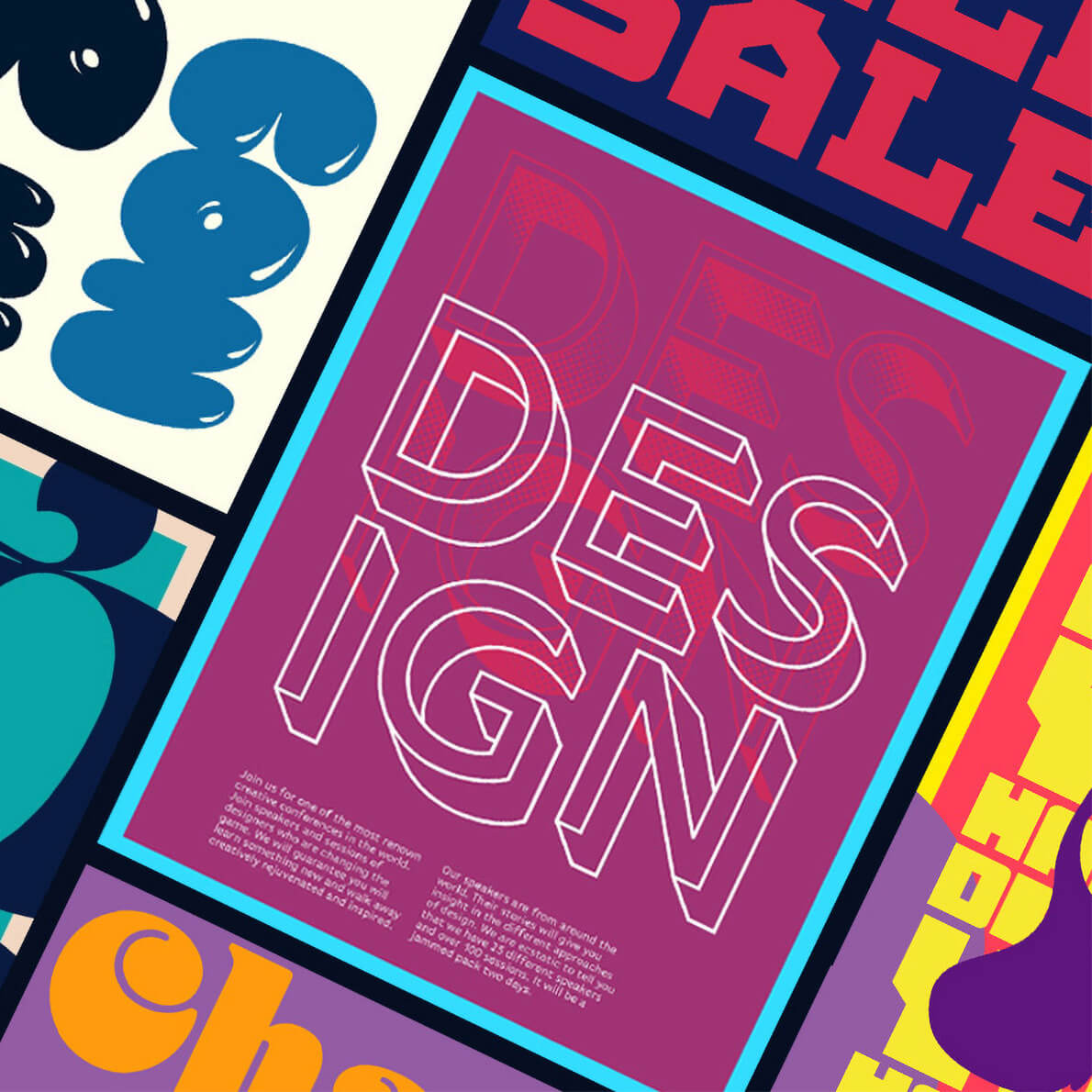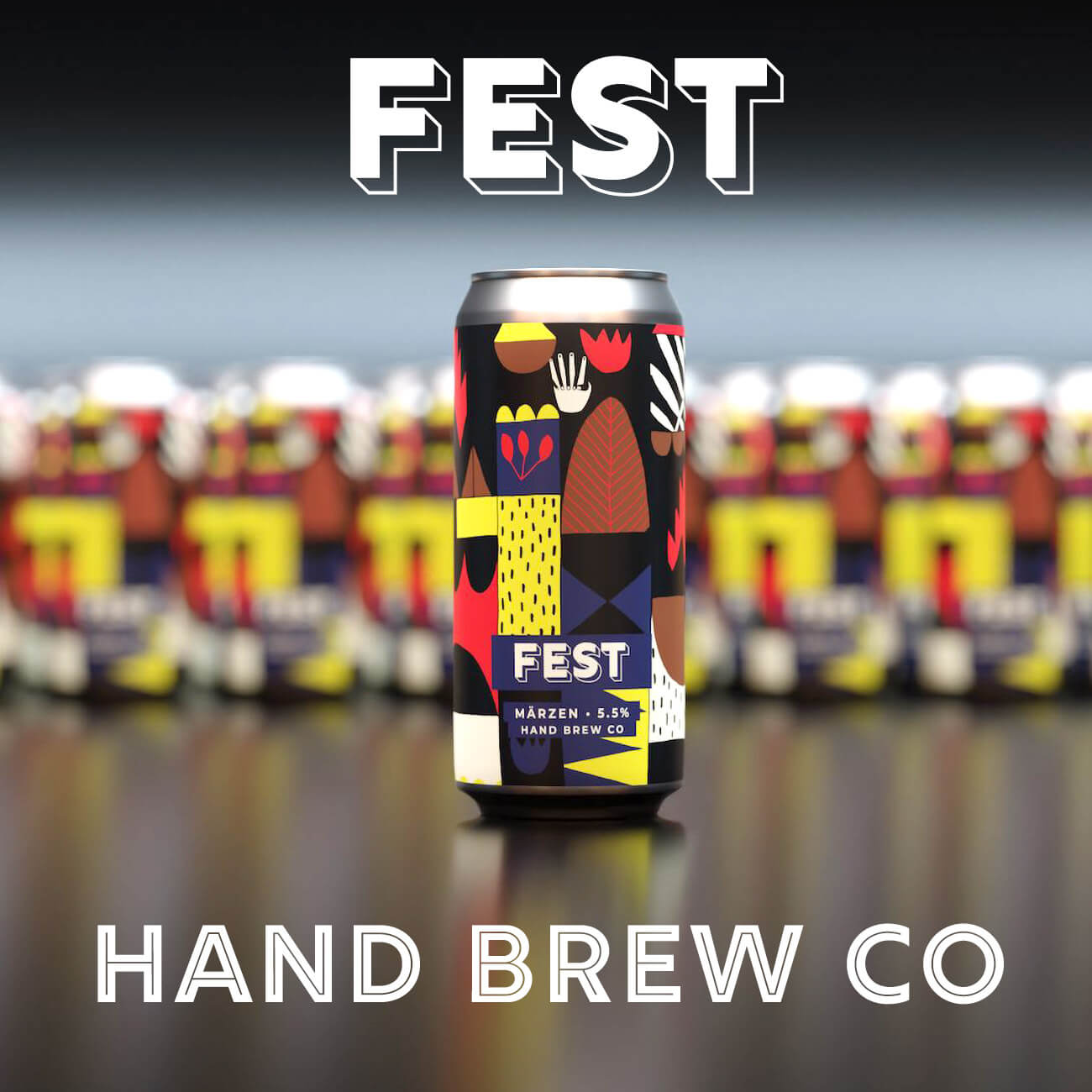
Rig Solid
Features
Opentype Features
Ordinals
Superiors [1,2,3]
Fractions
Alternative &
Alternative J
Alternative G
Rig Solid is a modern 3D font that brings bold, dynamic energy to any design. Its 13 styles include solid and gradient designs, offering versatility and impact for print and digital use.
Featuring clean geometric shapes and striking halftone textures, Rig Solid adds depth and character to headlines, logos and more. Its robust forms remain sharp and prominent, even over photography and patterned backgrounds, ensuring your typography commands attention.